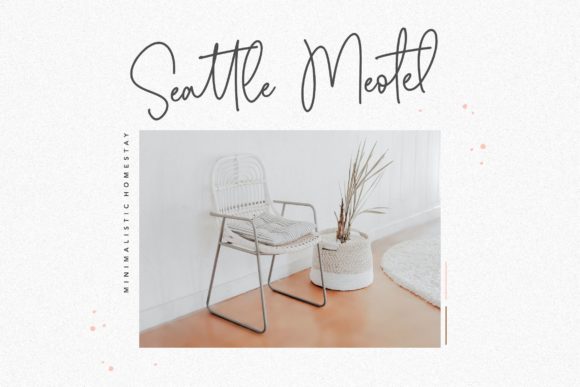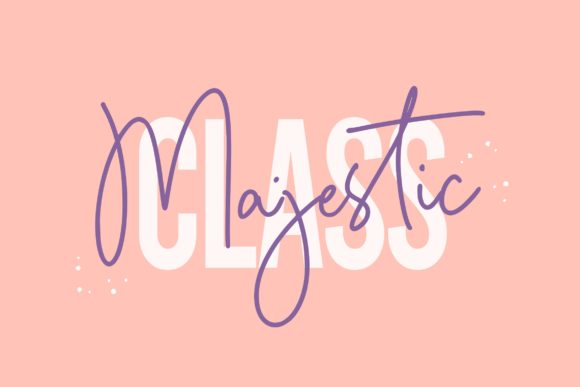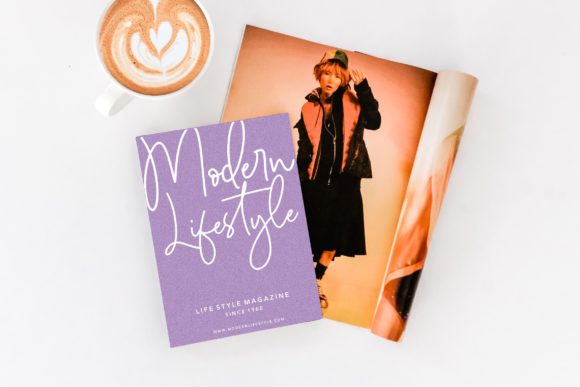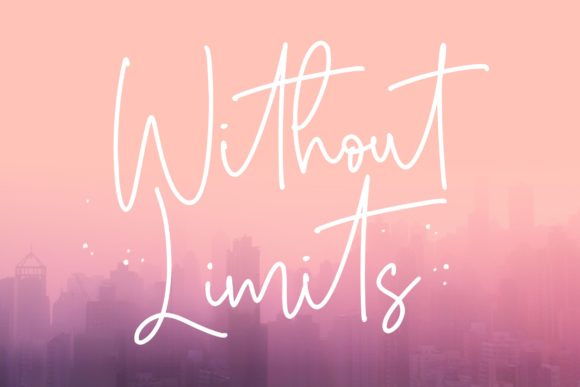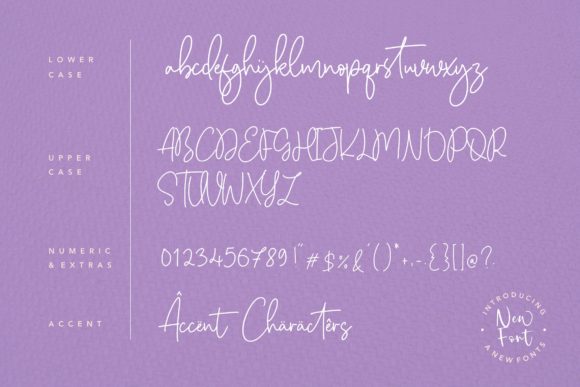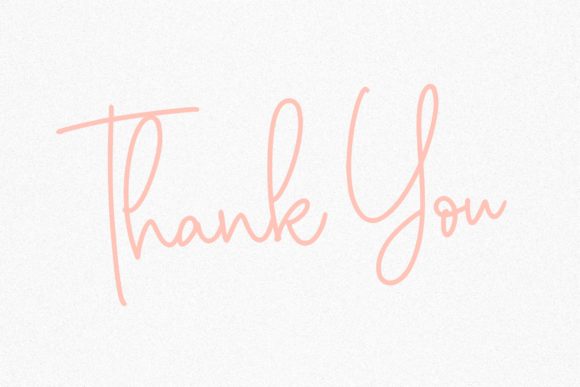
Citruslime Font: Elevate Your Creativity with Elegance
Are you a designer, crafter, or DIY enthusiast looking for a font that can add a touch of magic to your creative projects? Look no further than Citruslime, a beautiful handwritten font that combines elegance with playfulness. In this article, we’ll explore the features and benefits of Citruslime, and show you how it can help you take your creative ideas to the next level.
What is Citruslime Font?
Citruslime is a carefully crafted handwritten font that exudes elegance and sophistication. With its flowing lines and whimsical touches, this font is perfect for anyone looking to add a personal touch to their designs. Whether you’re creating social media graphics, crafting DIY projects, or designing calligraphy scripts, Citruslime is the perfect choice.
Key Features of Citruslime Font
- Magical Handwritten Style: Citruslime boasts a unique and enchanting handwritten style that will make your designs stand out from the crowd.
- Elegant and Playful: This font strikes the perfect balance between elegance and playfulness, making it suitable for a wide range of creative projects.
- PUA Encoded: Citruslime is PUA (Private Use Area) encoded, which means you can easily access all the glyphs and swashes with ease.
- Multipurpose: Use Citruslime for Instagram graphics, calligraphy scripts, DIY projects, and more – the possibilities are endless!
Benefits of Using Citruslime Font
So, why choose Citruslime for your creative projects? Here are just a few benefits of using this amazing font:
- Add a Personal Touch: With Citruslime, you can add a personal touch to your designs and make them truly unique.
- Save Time: The PUA encoding makes it easy to access all the glyphs and swashes, saving you time and effort.
- Elevate Your Brand: If you’re a designer or business owner, Citruslime can help you elevate your brand and create a consistent visual identity.
- Endless Creative Possibilities: From social media graphics to craft projects, Citruslime opens up a world of creative possibilities.
Who Can Benefit from Citruslime Font?
Citruslime is perfect for a wide range of creative professionals and enthusiasts, including:
- Graphic Designers: Add a touch of elegance to your designs and create stunning visual content.
- Crafters and DIY Enthusiasts: Take your craft projects to the next level with beautiful calligraphy and handwriting.
- Social Media Influencers: Create eye-catching Instagram graphics and social media posts with Citruslime.
- Small Business Owners: Establish a consistent brand identity with Citruslime’s elegant and sophisticated style.
Tips for Using Citruslime Font
Here are some tips for getting the most out of Citruslime:
- Experiment with Different Sizes: Citruslime looks great in a variety of sizes, so don’t be afraid to experiment and find the perfect fit for your project.
- Mix and Match with Other Fonts: Combine Citruslime with other fonts to create a unique and visually appealing design.
- Use the Swashes and Glyphs: Take advantage of Citruslime’s PUA encoding and use the swashes and glyphs to add a personal touch to your designs.